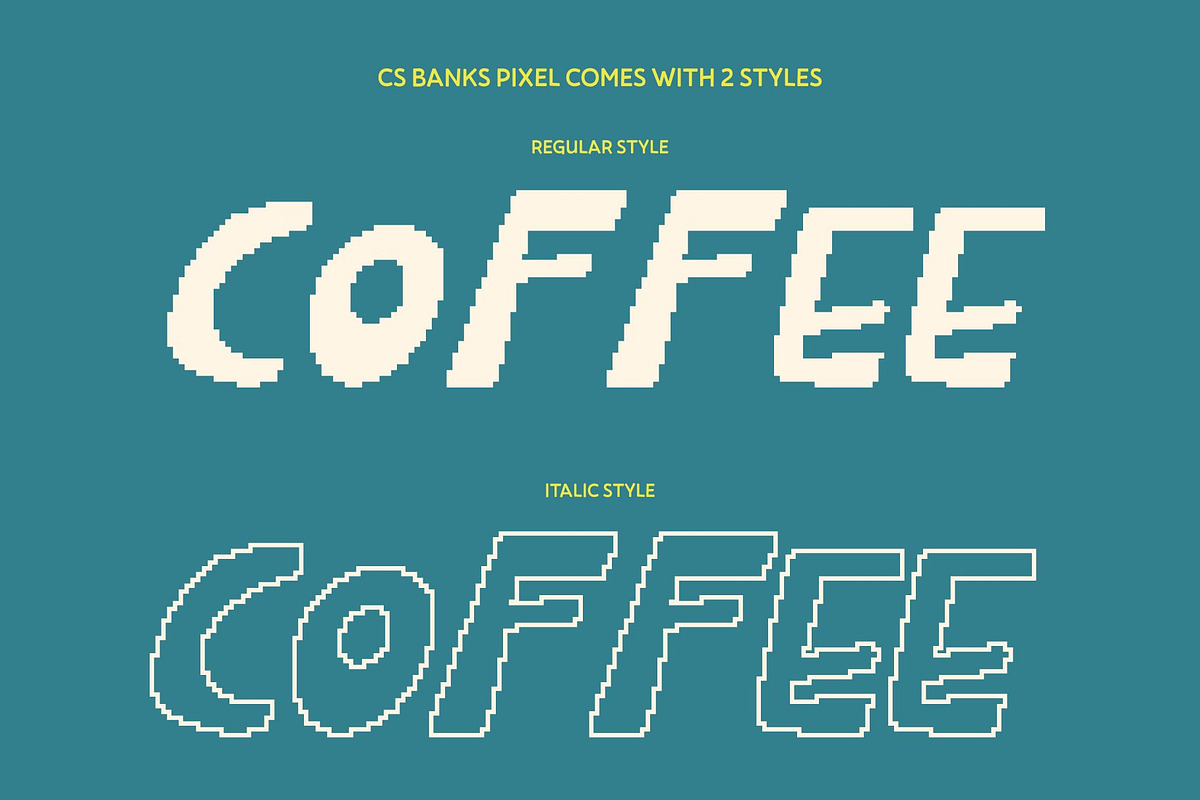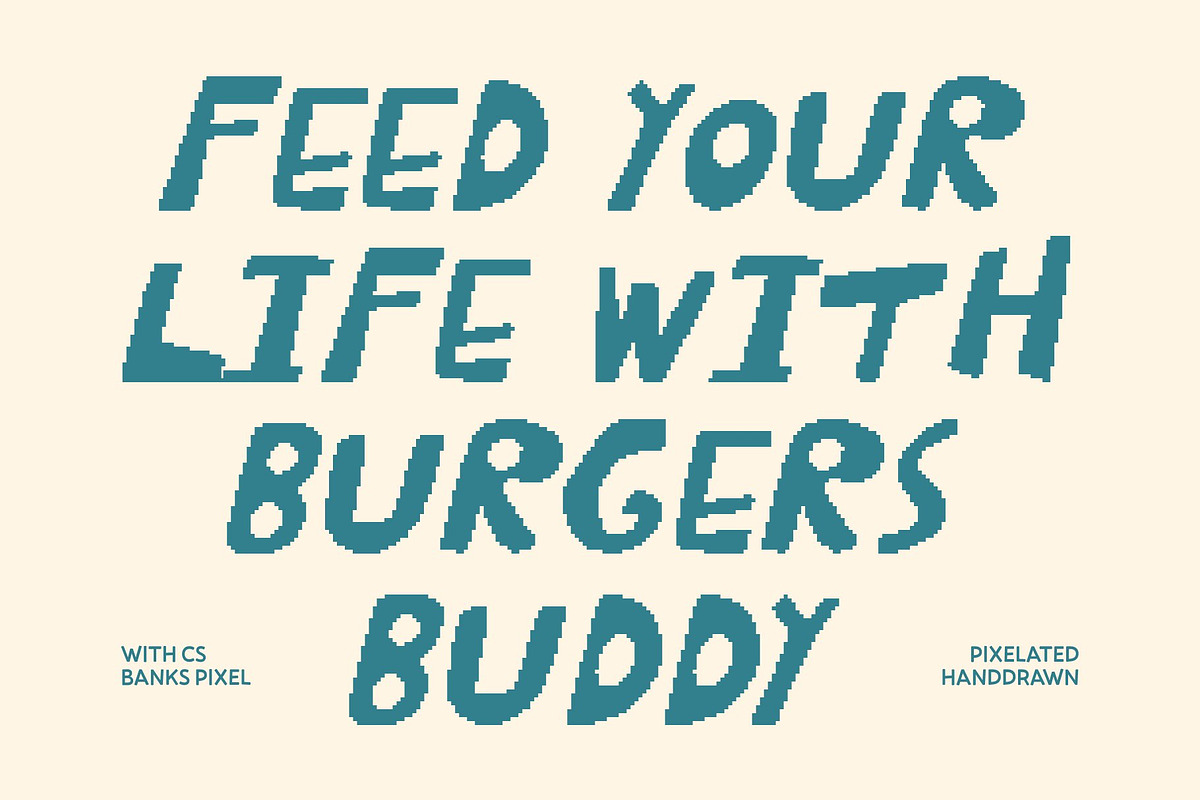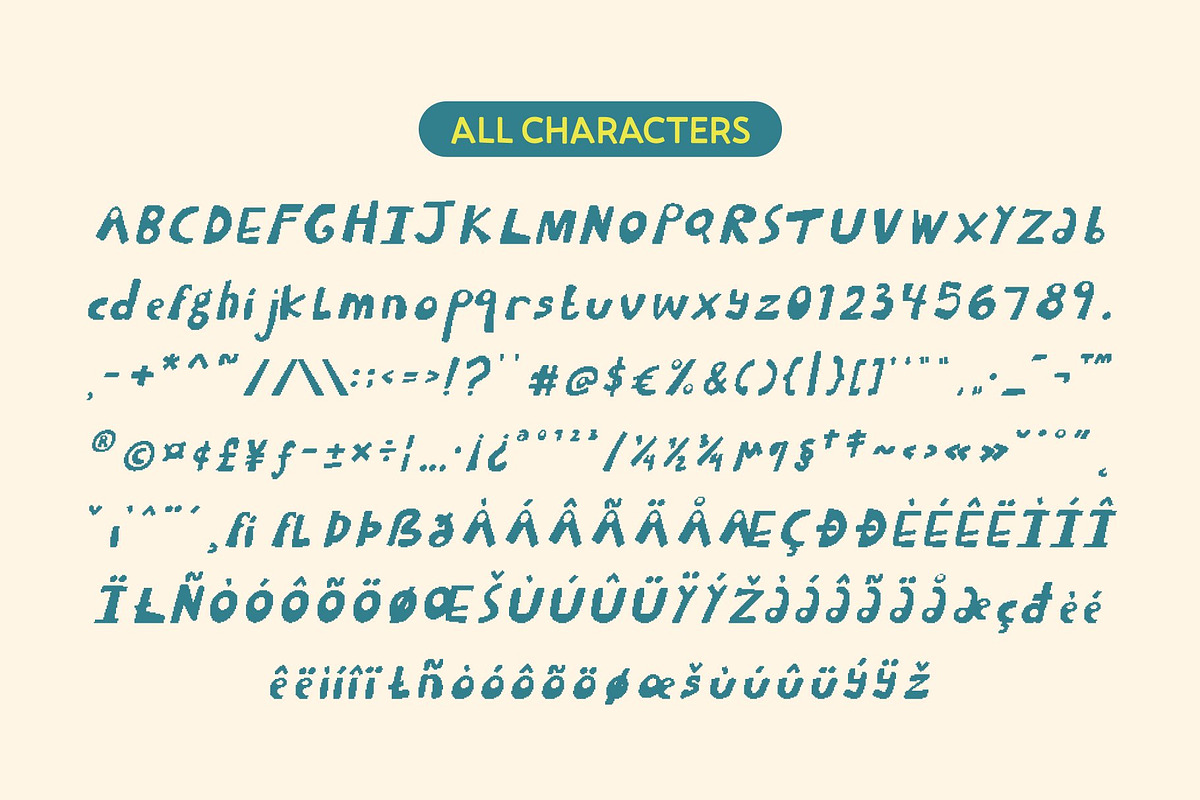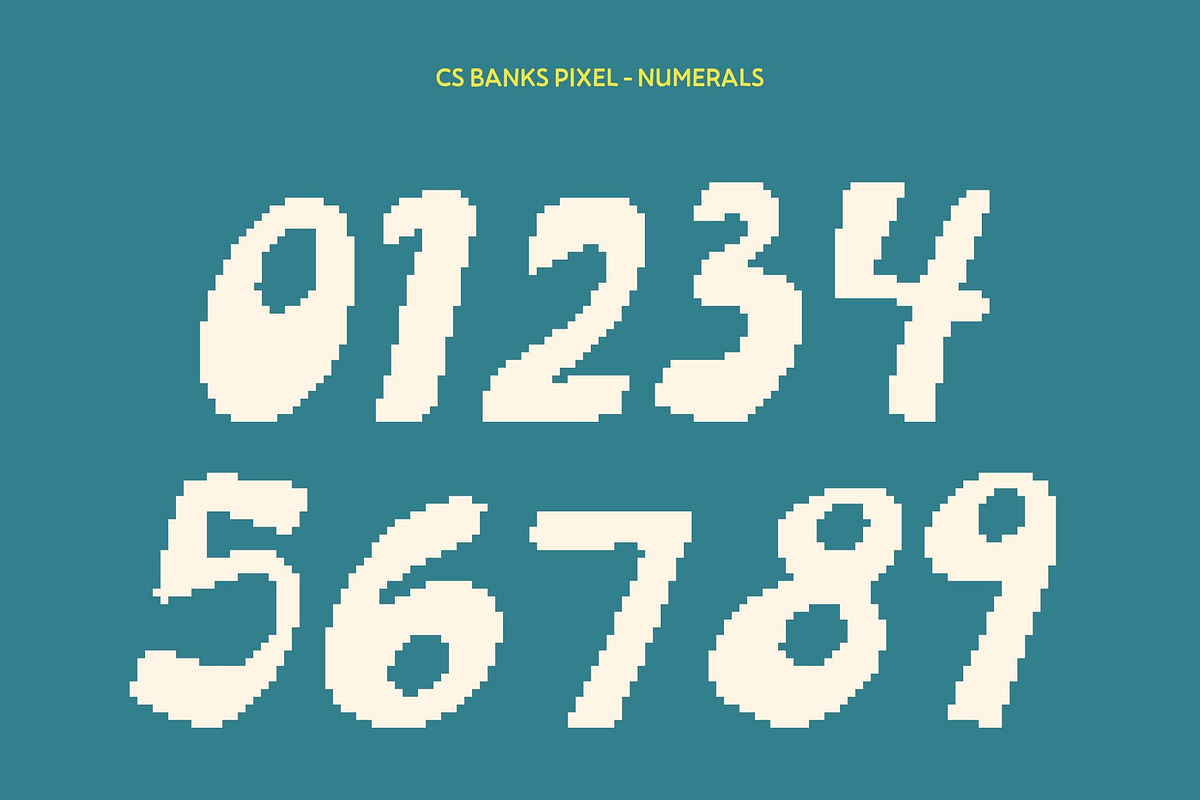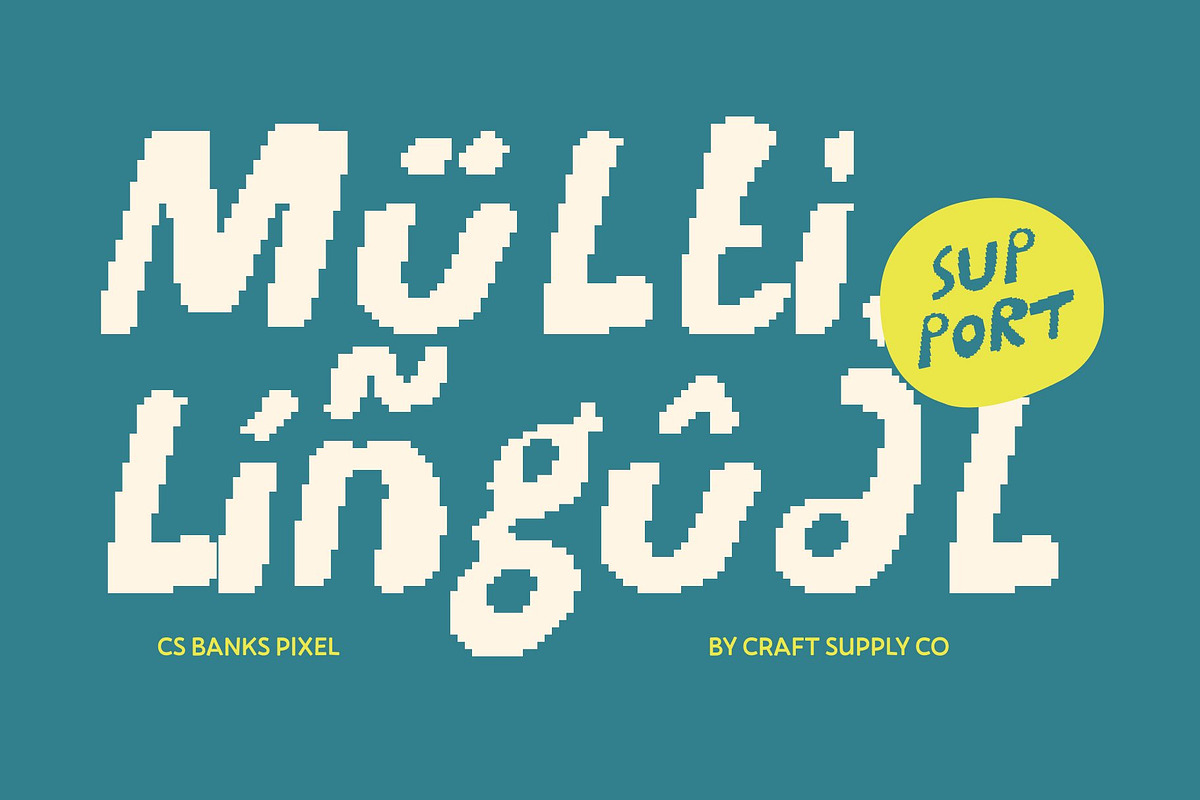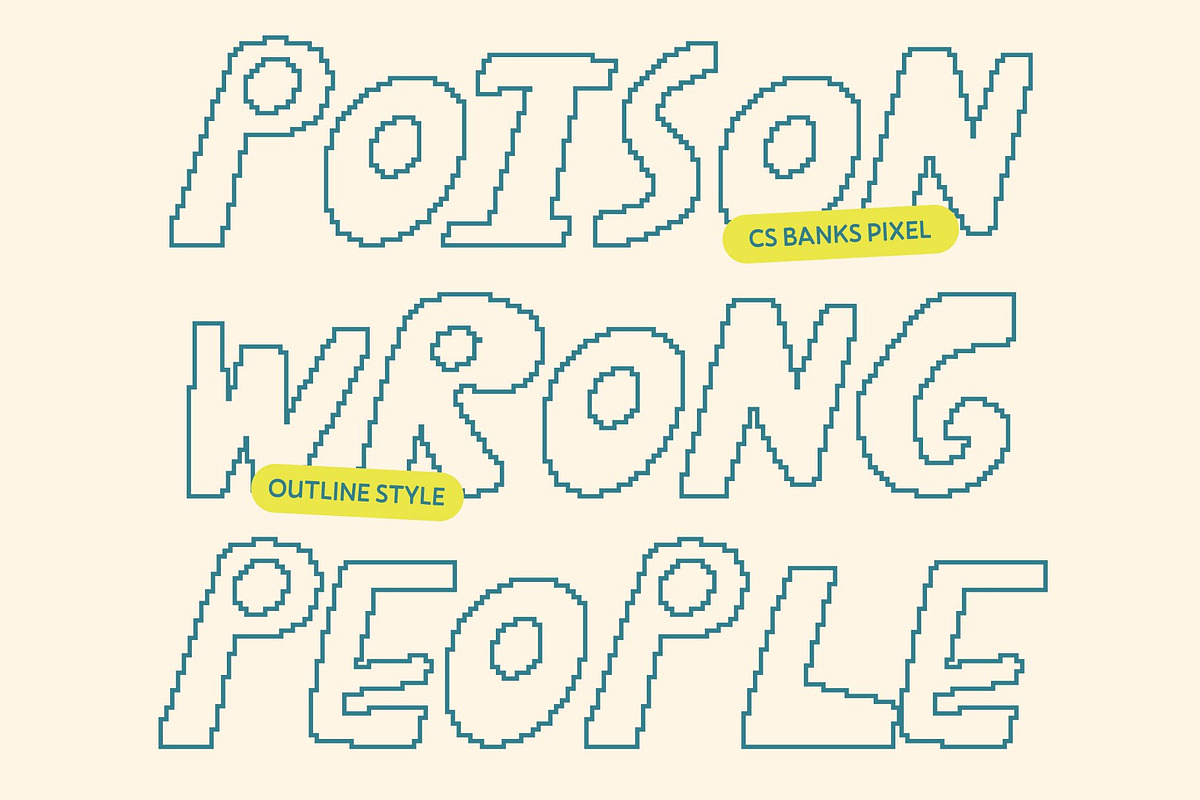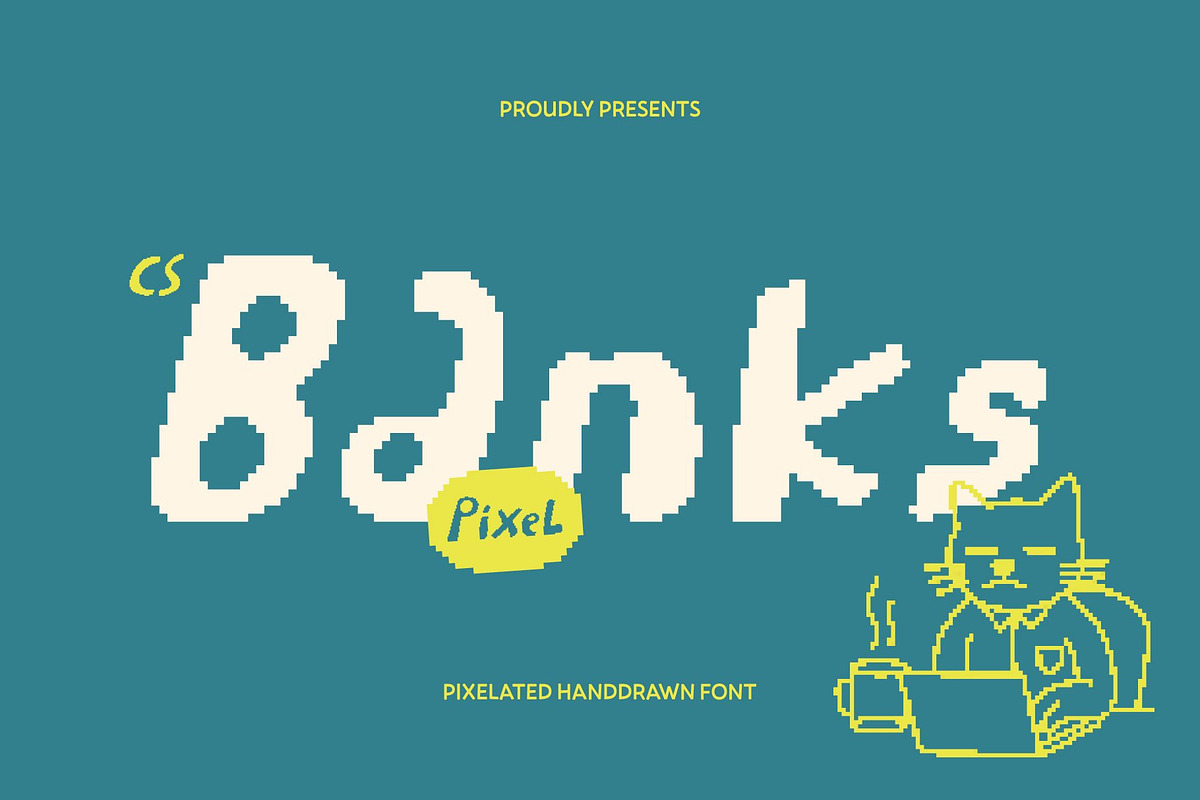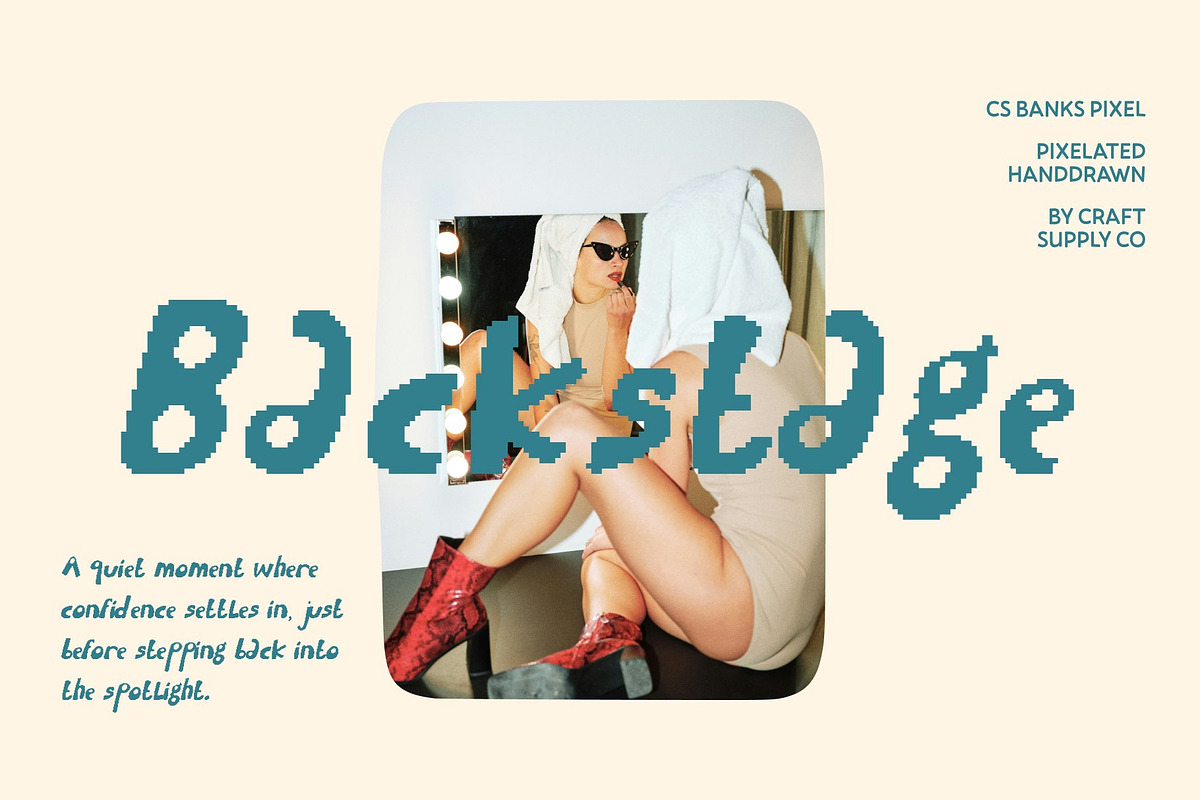
CS Banks Pixel
CS Banks Pixel – Playful Hand-Drawn Font with Bold, Energetic Personality
Bold Hand-Drawn Strokes with Fun Pixel Charm This is a lively hand-drawn display font with bold strokes and friendly, geometric shapes. Its playful, pixel-style detailing adds a retro 8-bit digital feel while maintaining the warmth and expressiveness of handcrafted lettering. Each character exudes energy and personality, making your designs feel cheerful, approachable, and instantly eye-catching.
Experimental and Creative Letterforms With slightly uneven strokes and dynamic proportions, this font embraces creativity and individuality. The pixel-infused forms give the font a nostalgic, retro-digital vibe, while the hand-drawn energy keeps it modern and expressive. Its unique rhythm and motion create a font that feels both adventurous and full of life.
Perfect for Youthful Branding and Casual Projects Ideal for playful brands, kids’ products, lifestyle designs, or casual businesses, this font brings a friendly, upbeat tone to every application. Its bold, energetic character makes it perfect for logos, product packaging, taglines, and fun branding concepts that want to feel approachable and full of personality.
Versatile for Fun Display and Digital Design From social media visuals and posters to greeting cards and invitations, this font shines in any creative context. Its combination of hand-drawn charm and pixel-style retro flair ensures your headlines, titles, and display text grab attention while radiating warmth, energy, and a distinctive playful character.